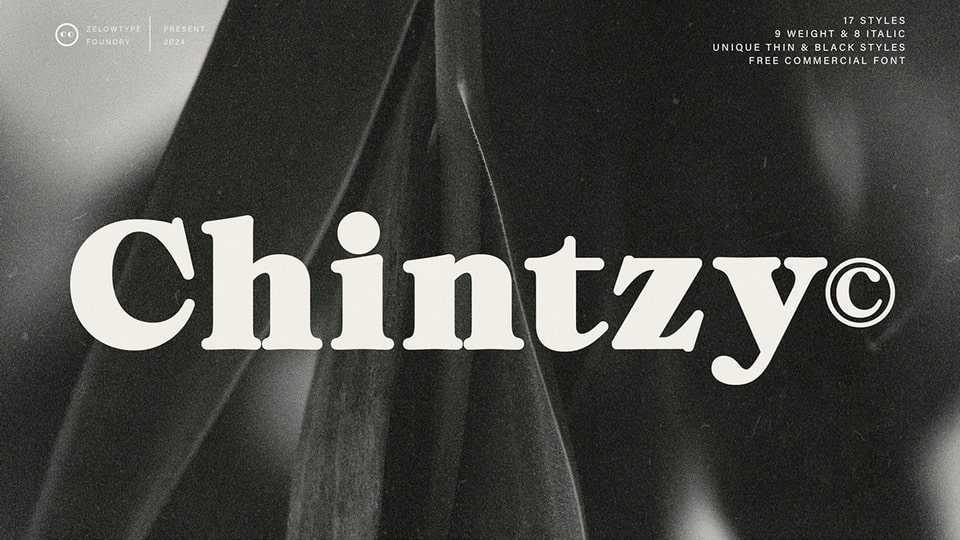
Download ZT Chintzy font, a serif typeface that pays homage to the expressive, soft, and rounded serif typography of the 1960s and 1970s era. ZT Chintzy’s gentle and captivating serifs evoke warmth and nostalgia reminiscent of that era’s typefaces.
Designer: Zelow Type